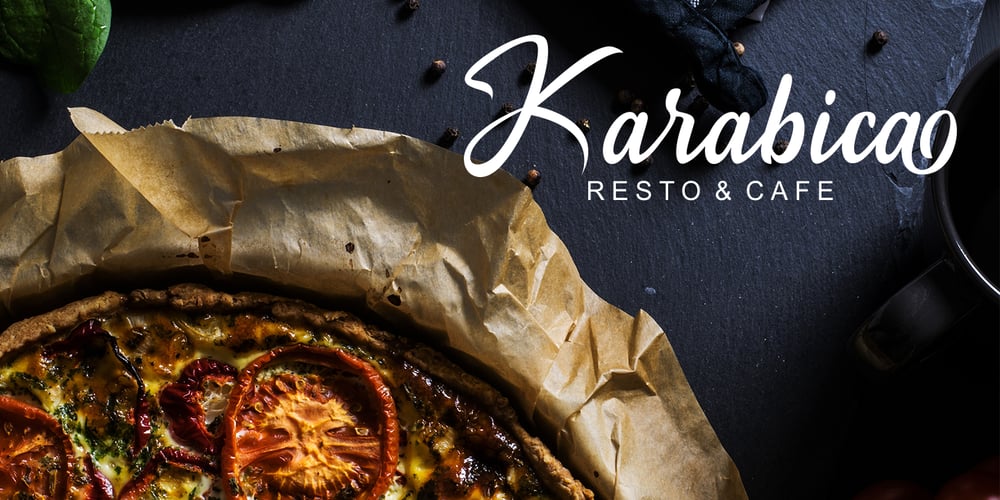
Maryhand Font Family was designed by Muhammad Mujibulloh and published by MJB Letters. Maryhand contains 1 styles and family package options. Introducing Maryhand, a bold and strong script font. carefully crafted. It contains many stylistic alternate and swashes that will help you to create your customized design. This font is perfect for branding (Logotype) and other design needs, like for quotes, merchandise, packaging, business card, and many other projects. With start and ending swash and middle swash for some letters, this font is very easy to use. Maryhand is cool and elegant. Just rely on your creativity! Features : Ligature & alternates Simple installations Standard Uppercase and Lowercase Alphabet Numbers and Punctuation Stylistic Alternates Stylistic Set Open Type Features Ligatures PUA Encoded Multilingual support To access the alternate glyph, you need a program that supports Open Type Features such as Adobe Illustrator CC, Adobe Photoshop CC, Adobe Indesign or CorelDraw.